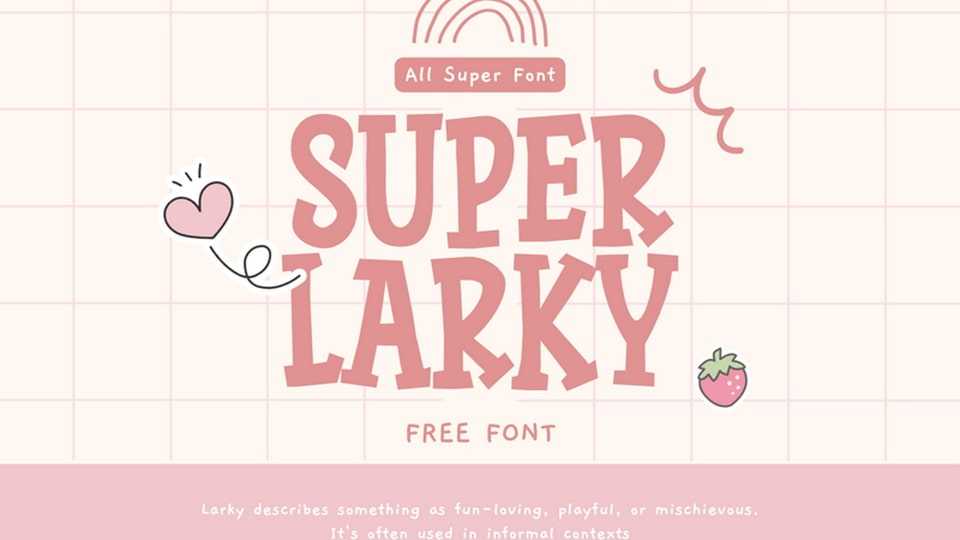
Download Super Larky font, a playful and quirky handcrafted cartoon typeface that brims with personality and charm. It features whimsical, uneven letterforms and delightful shapes that give it a unique, hand-drawn appeal.